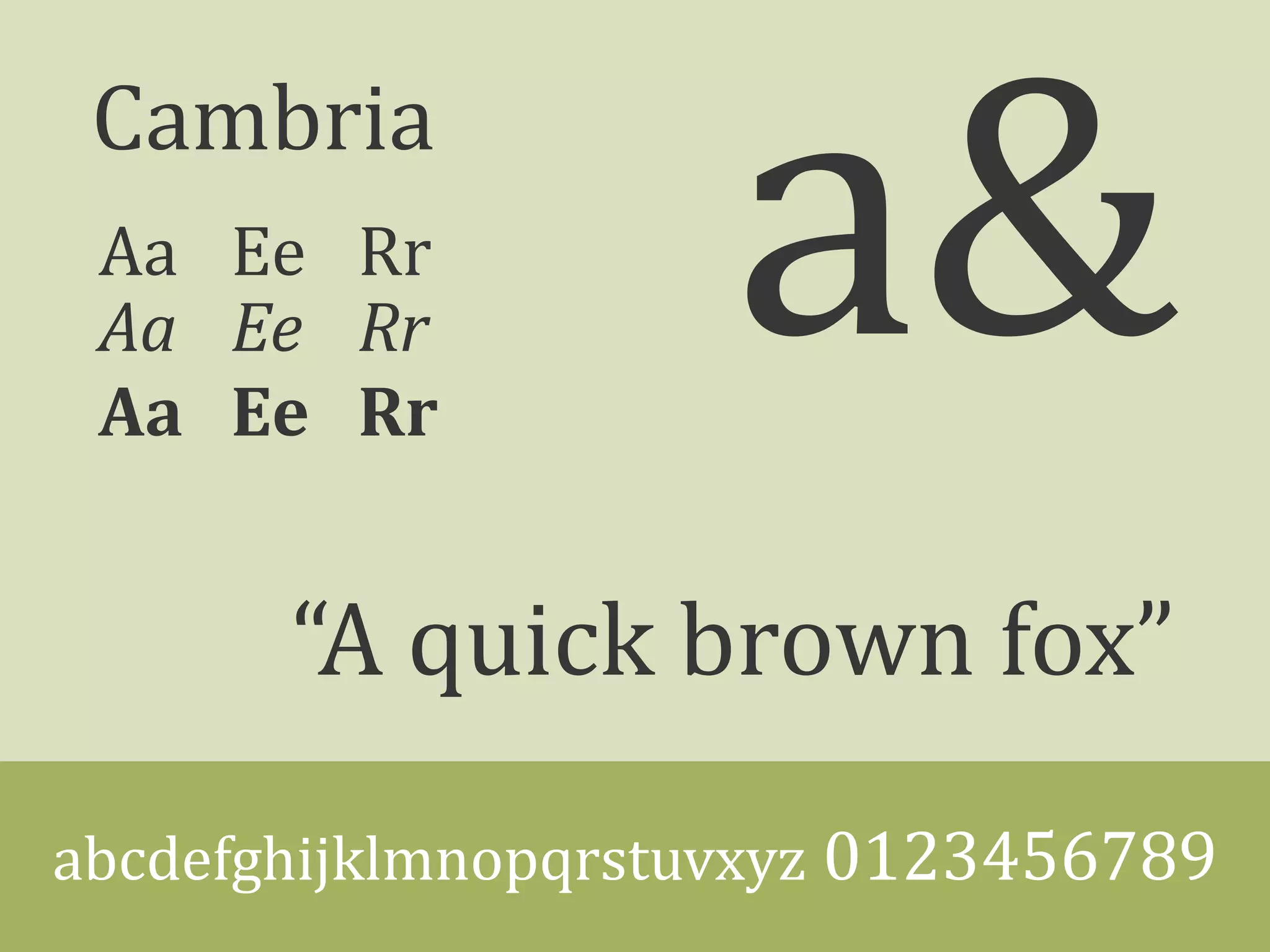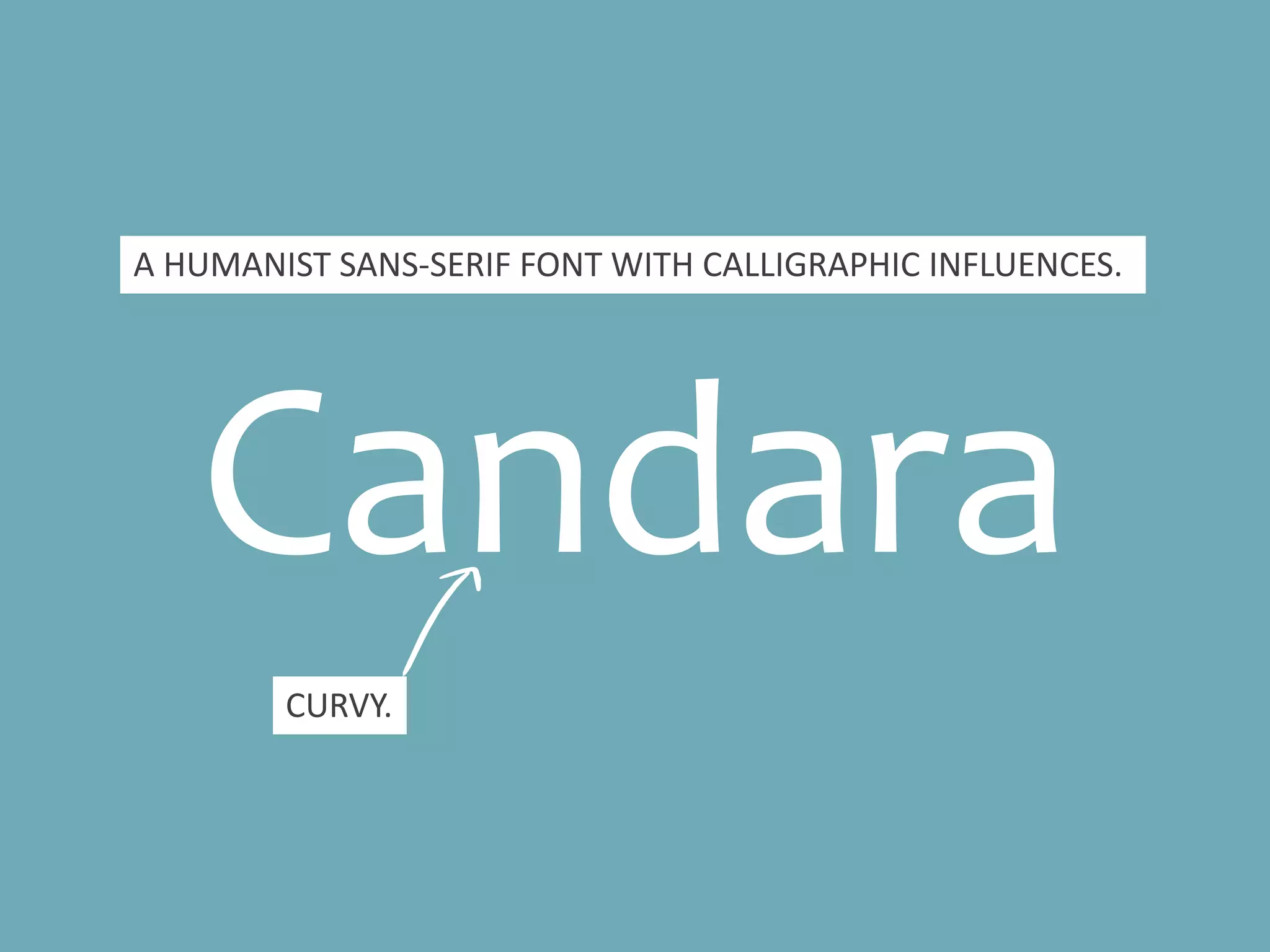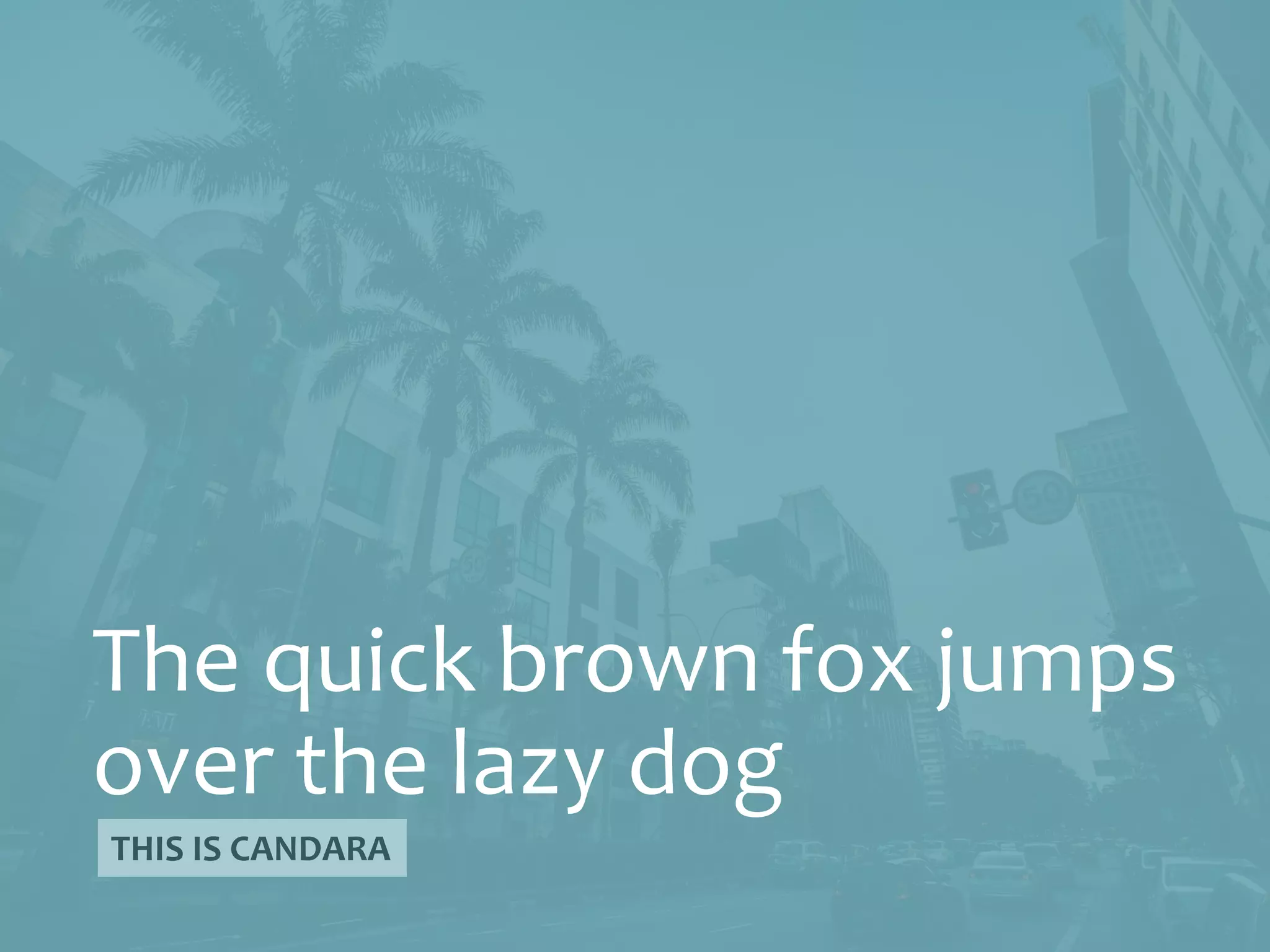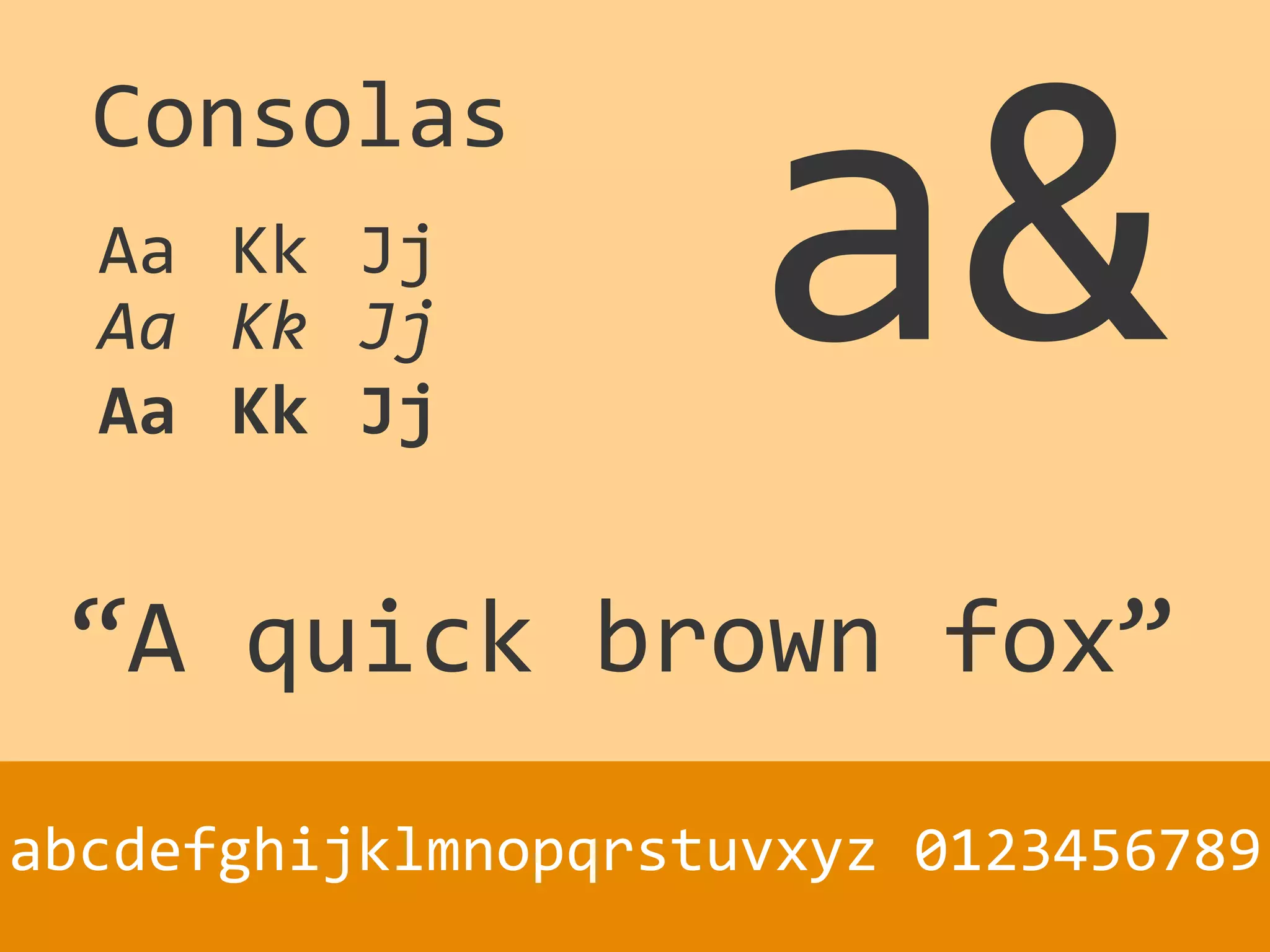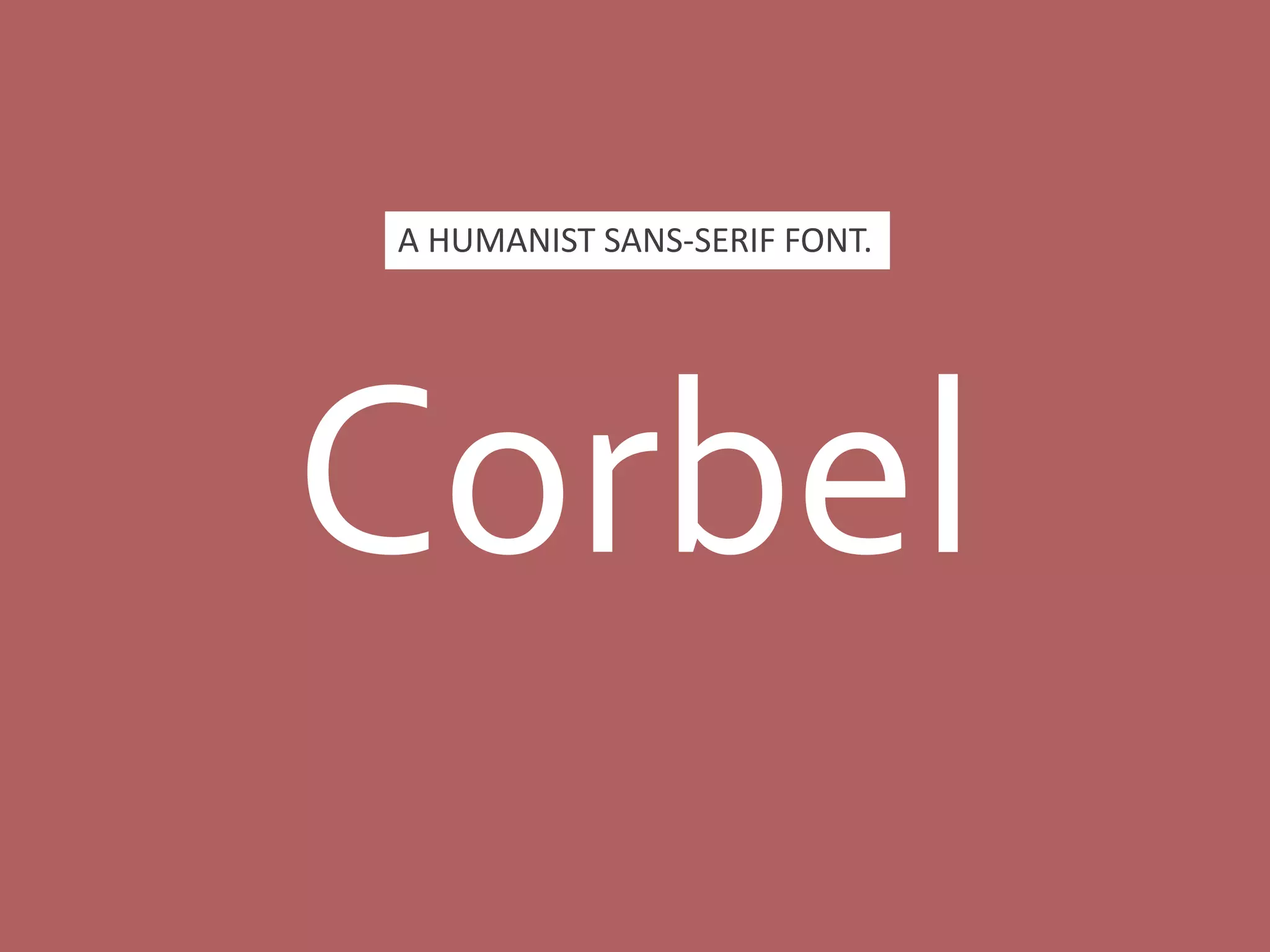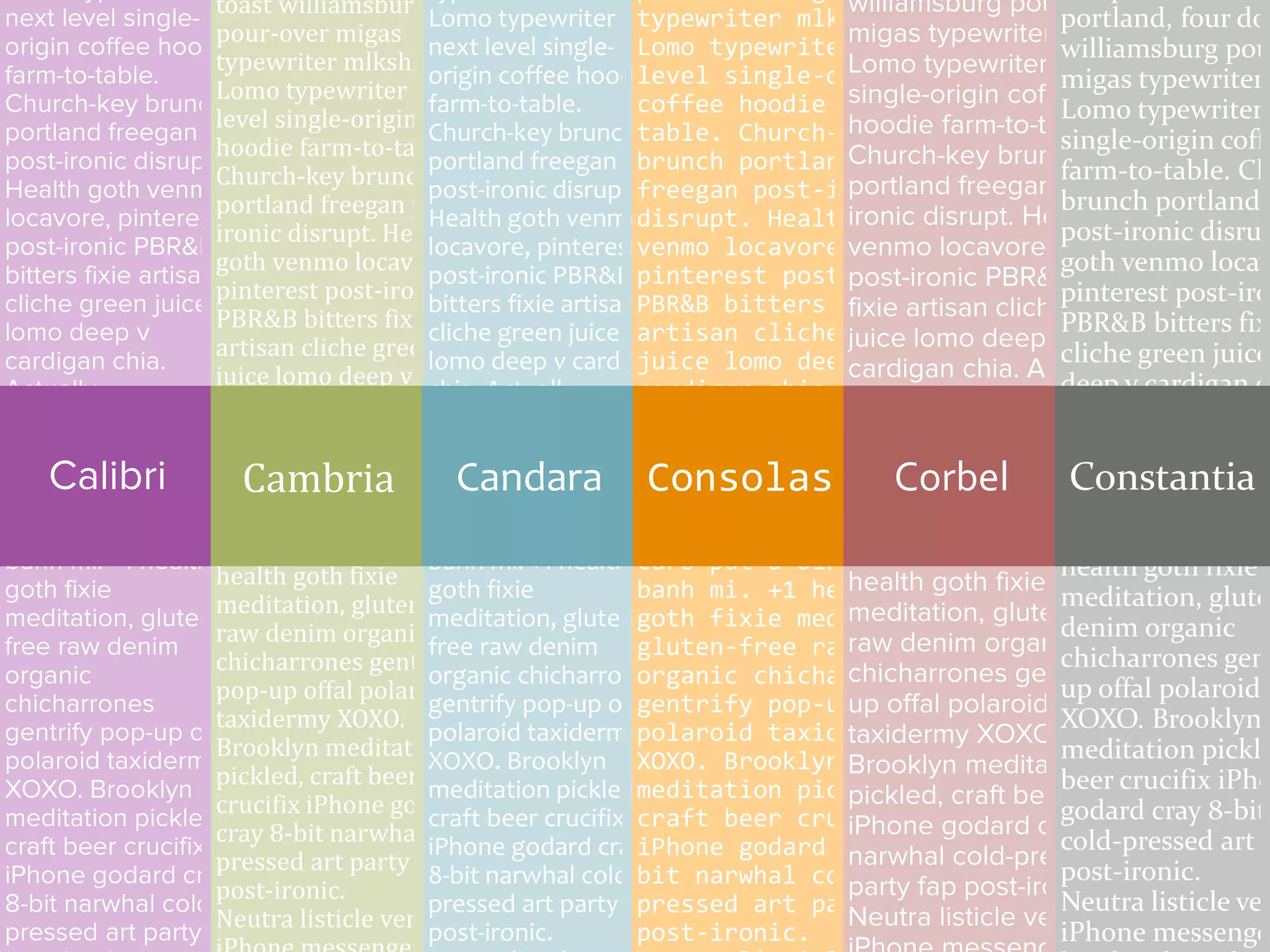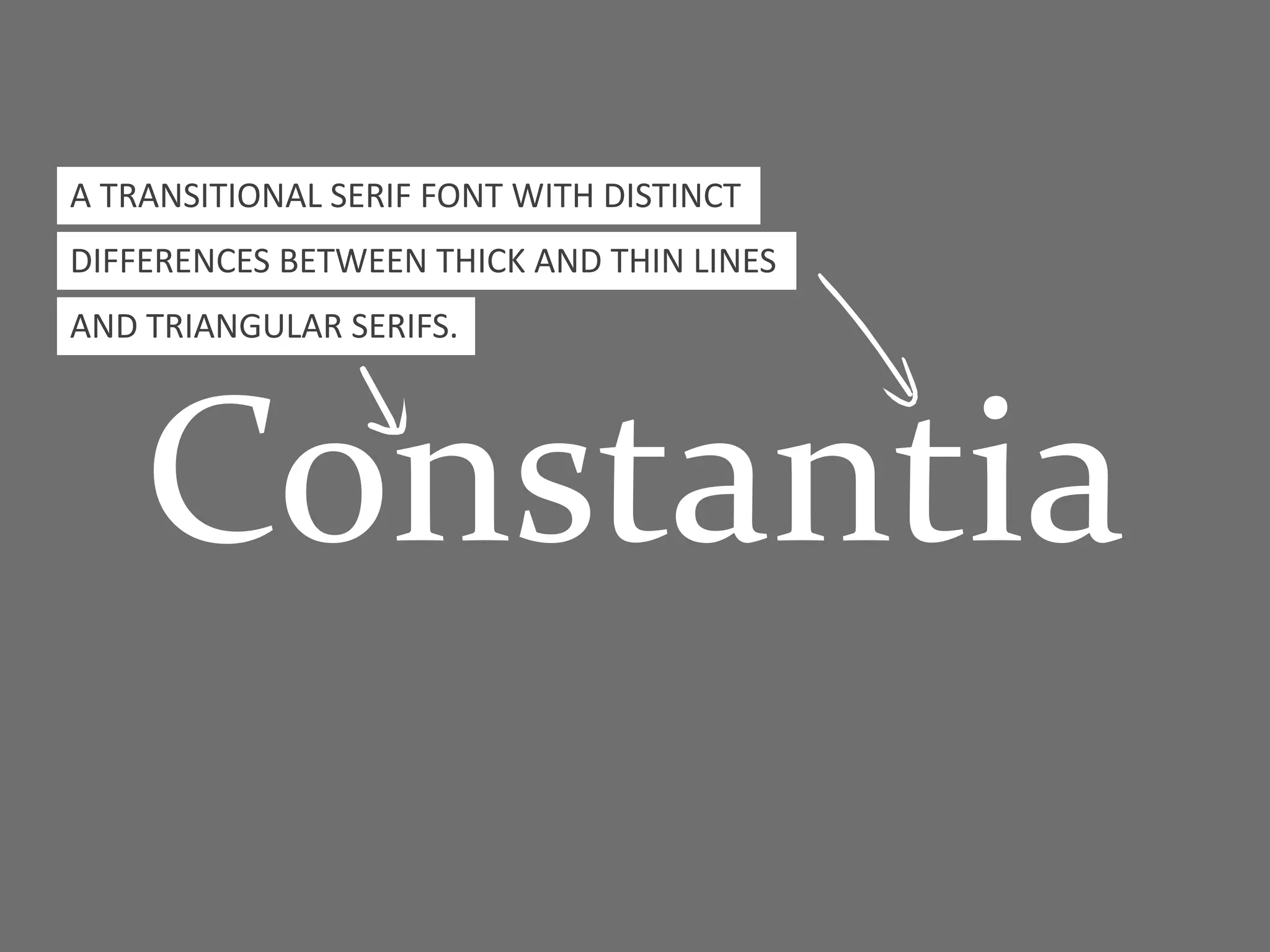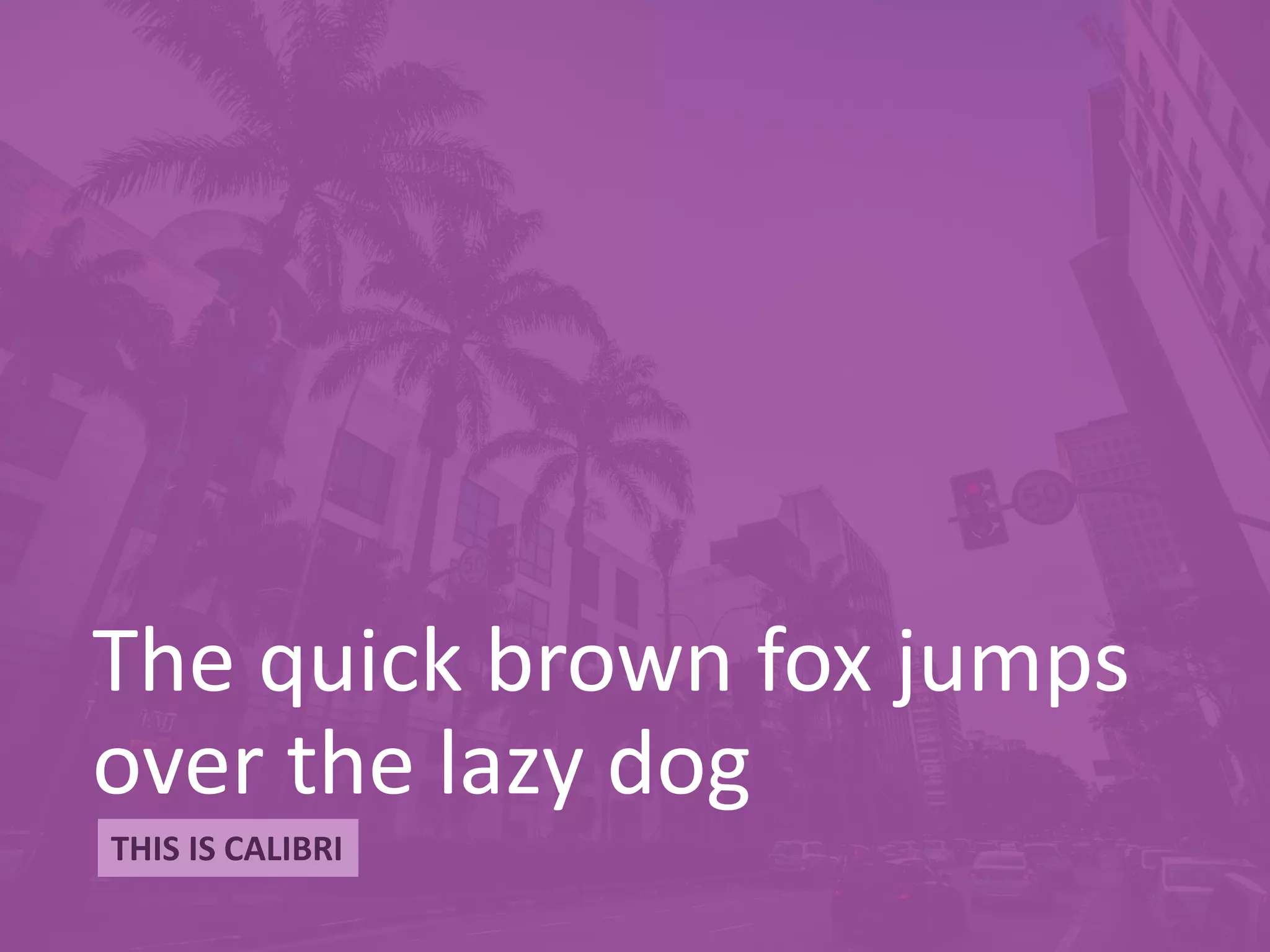
The six C-fonts that are safe to use
in PowerPoint
When you are creating PowerPoints and
choosing a font, you have to make your
selection carefully.
There are only 40-something fonts that are
safe* to use if you want your PowerPoint to
show correctly on any computer.
Six of these “safe” fonts are the six C-fonts,
introduced as part of the ClearType Font
Collection. Let’s explore them as potential fonts
for your next PowerPoint.
Calibri Cambria Candara Consolas Corbel Constantia
Calibri
A SANS-SERIF WITH SLIGHTLY ROUNDED STEMS.
Calibri
REPLACED ARIAL AS STANDARD SANS-SERIF FONT,
NOW STANDARD FONT IN MICROSOFT OFFICE.
A SANS-SERIF WITH SLIGHTLY ROUNDED STEMS.
Cambria
A SERIF WITH SMALL HORIZONTAL SERIFS.
SQUARE FULL STOP.
Cambria
REPLACED TIMES NEW ROMAN AS
.
SERIF STANDARD FONT.
A SERIF WITH SMALL HORIZONTAL SERIFS.
SQUARE FULL STOP.
Candara
A HUMANIST SANS-SERIF FONT
WITH CALLIGRAPHIC INFLUENCES.
Candara
CURVY.
A HUMANIST SANS-SERIF FONT
WITH CALLIGRAPHIC INFLUENCES.
Consolas
A MONOSPACED SANS-SERIF TYPEFACE.
Consolas
EVERY LETTER TAKES UP THE SAME SPACE.
A MONOSPACED SANS-SERIF TYPEFACE.
Corbel
A HUMANIST SANS-SERIF FONT.
Corbel3
NUMBERS ARE RENDERED AS LOWERCASE NUMERALS.
A HUMANIST SANS-SERIF FONT.
Constantia
A TRANSITIONAL SERIF FONT WITH DISTINCT
DIFFERENCES BETWEEN THICK AND THIN LINES
AND TRIANGULAR SERIFS.
Constantia
A TRANSITIONAL SERIF FONT WITH DISTINCT
DIFFERENCES BETWEEN THICK AND THIN LINES
AND TRIANGULAR SERIFS.
Constantia3
NUMBERS ARE RENDERED AS LOWERCASE NUMERALS.
A TRANSITIONAL SERIF FONT WITH DISTINCT
DIFFERENCES BETWEEN THICK AND THIN LINES
AND TRIANGULAR SERIFS.
are available in Google Slides
The C-fonts
Six safe fonts to use in your presentations